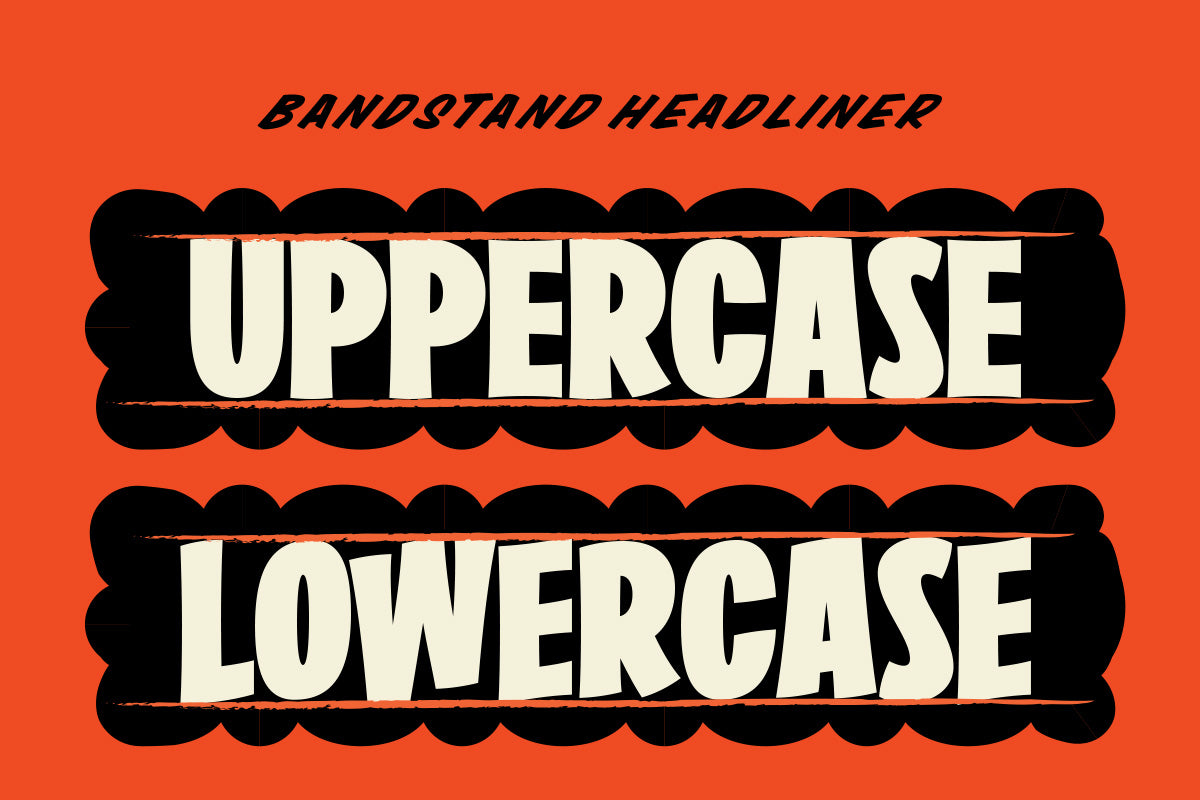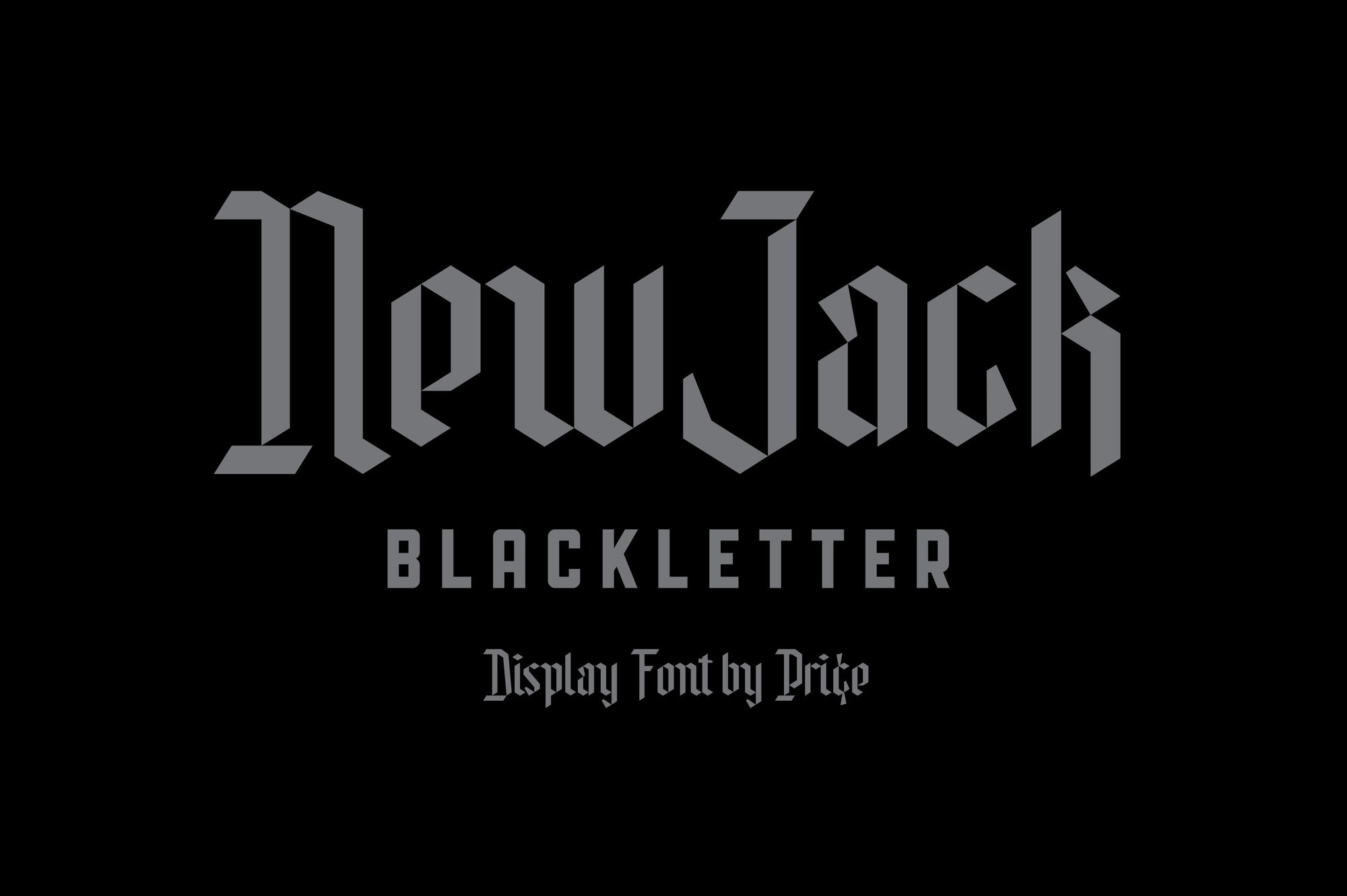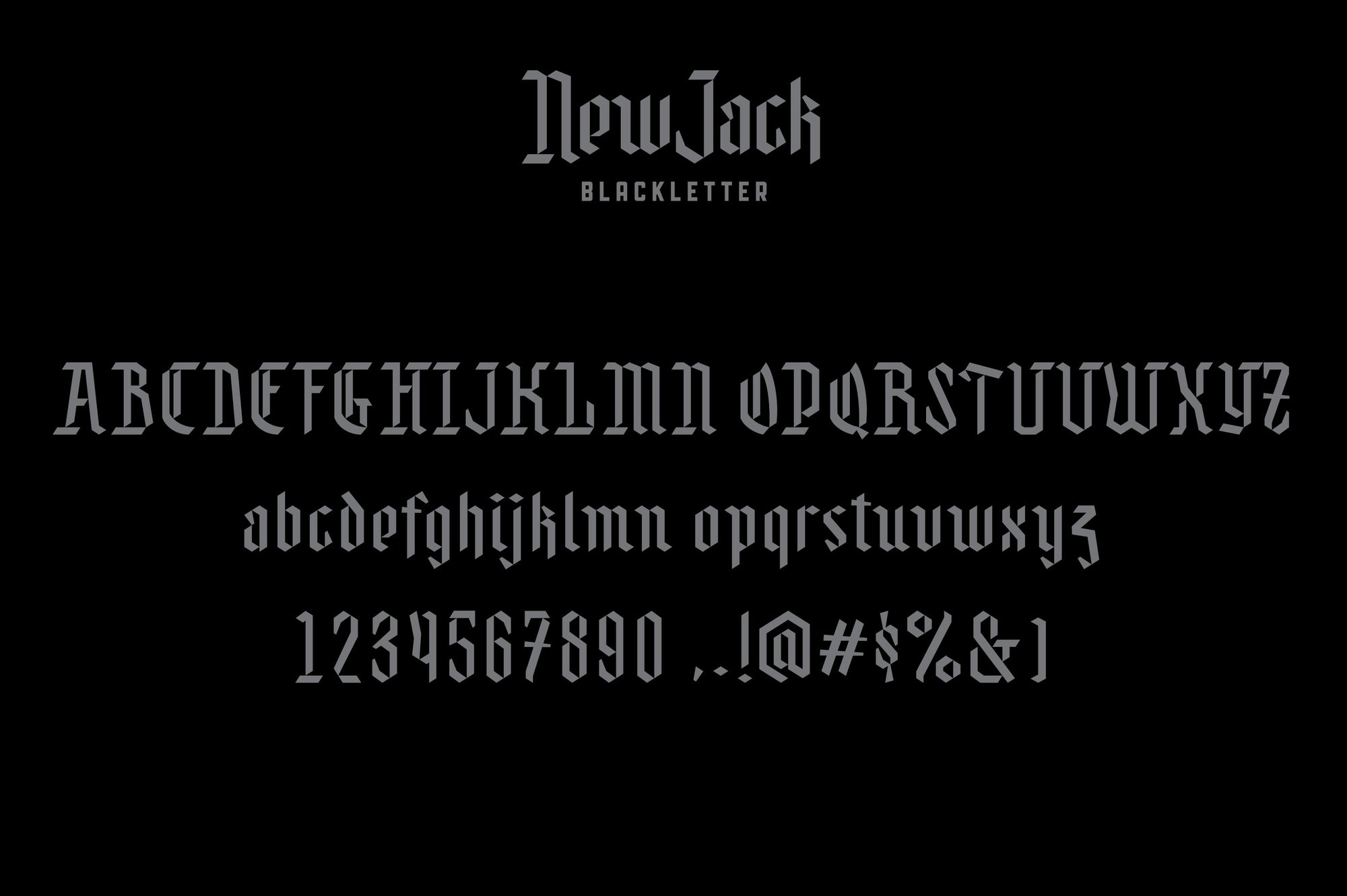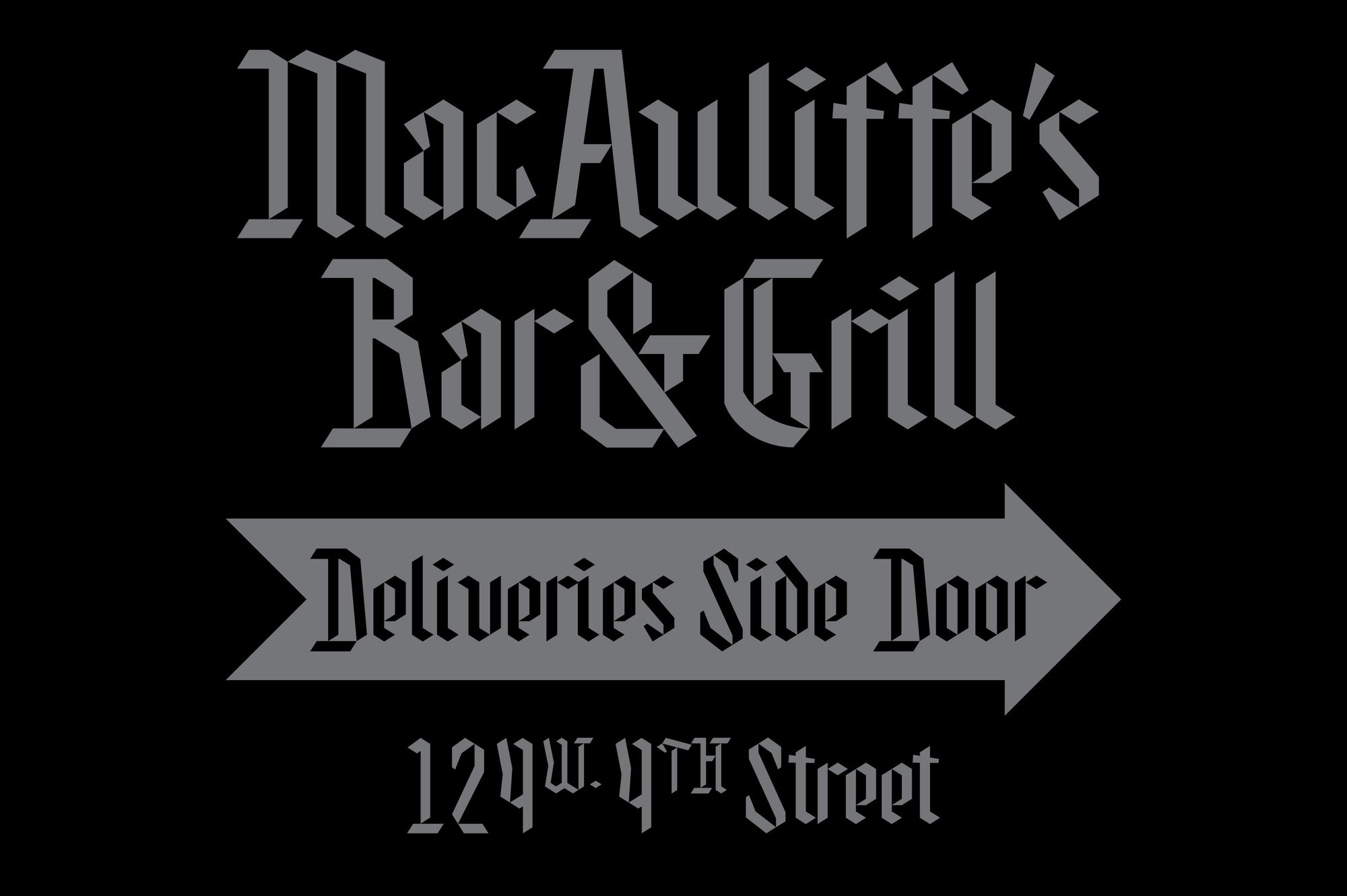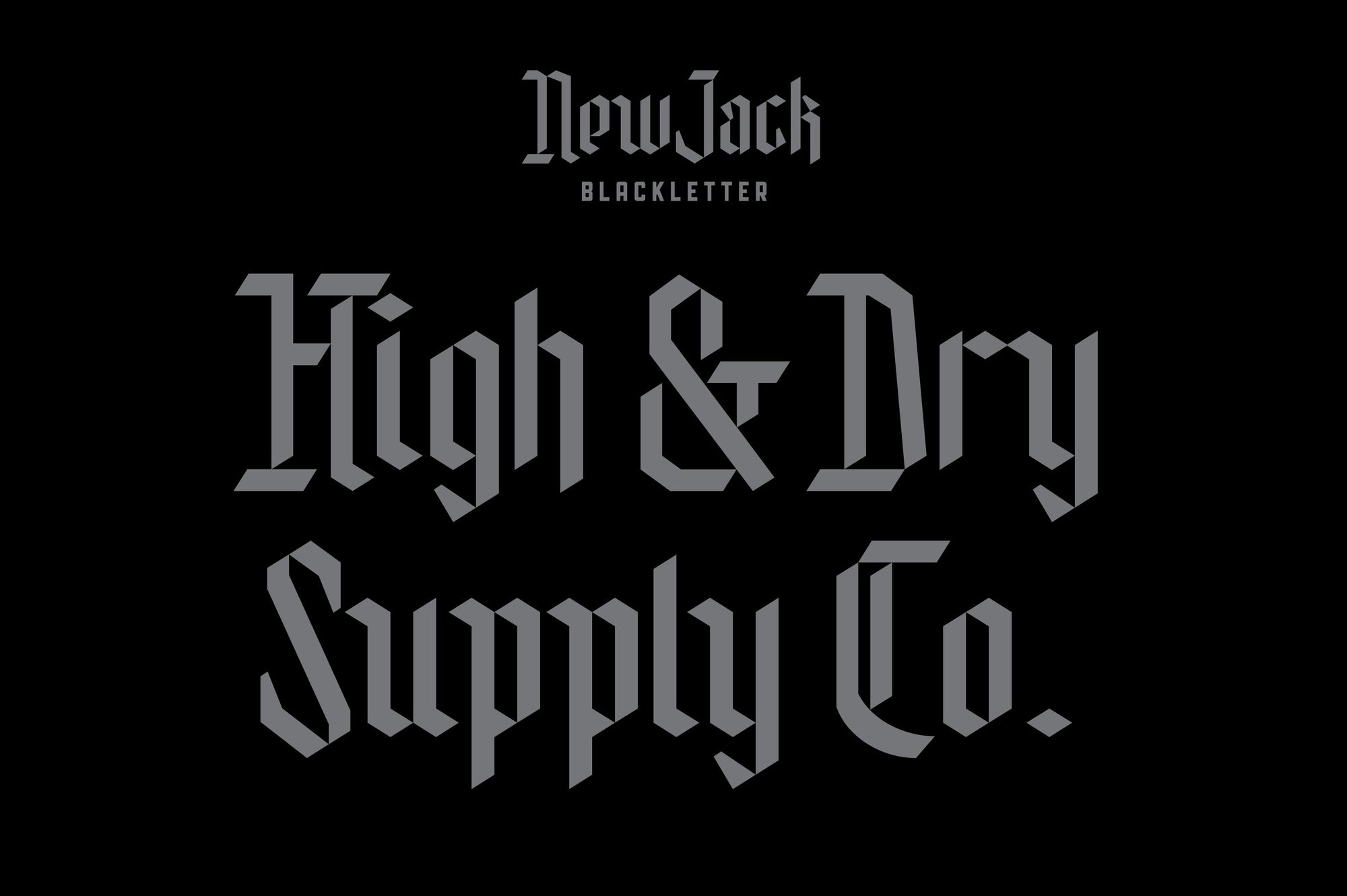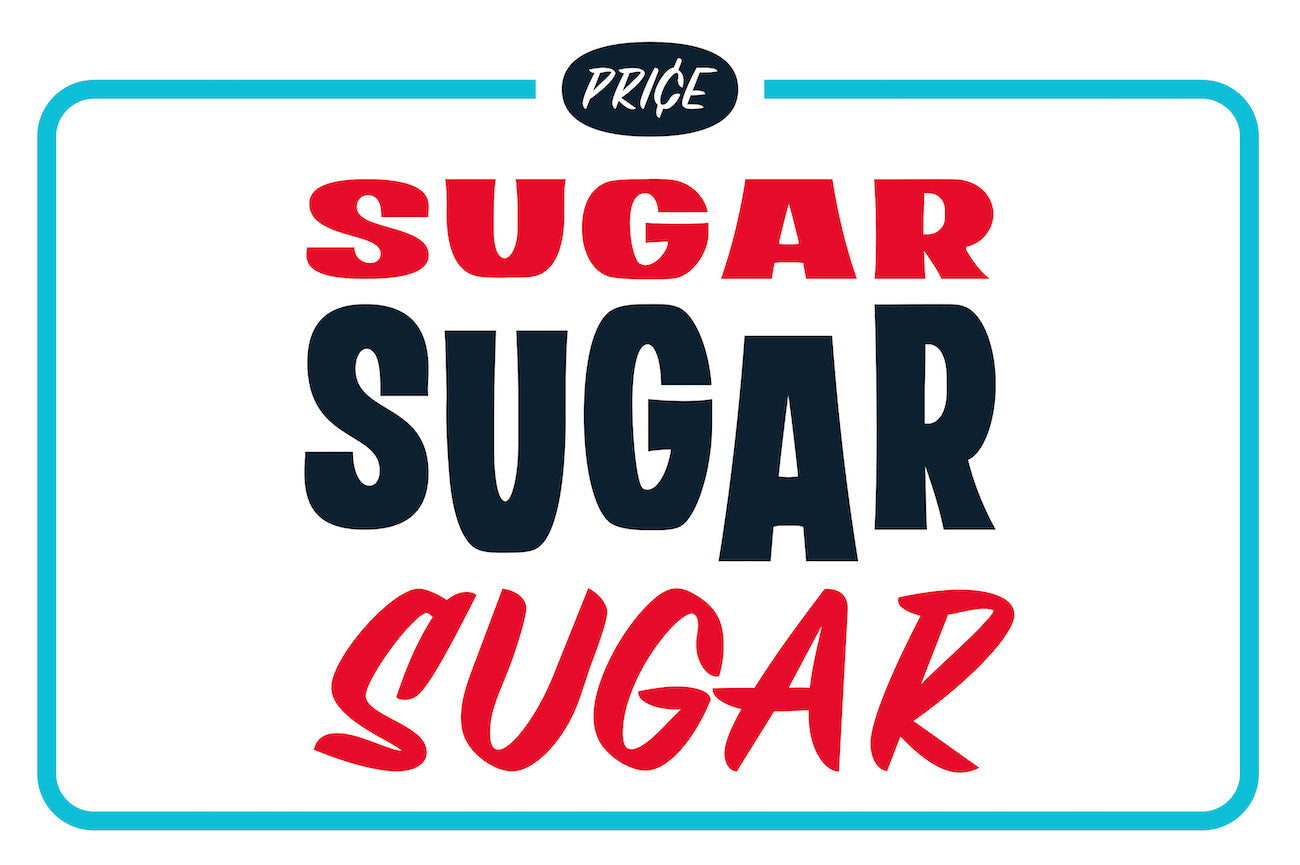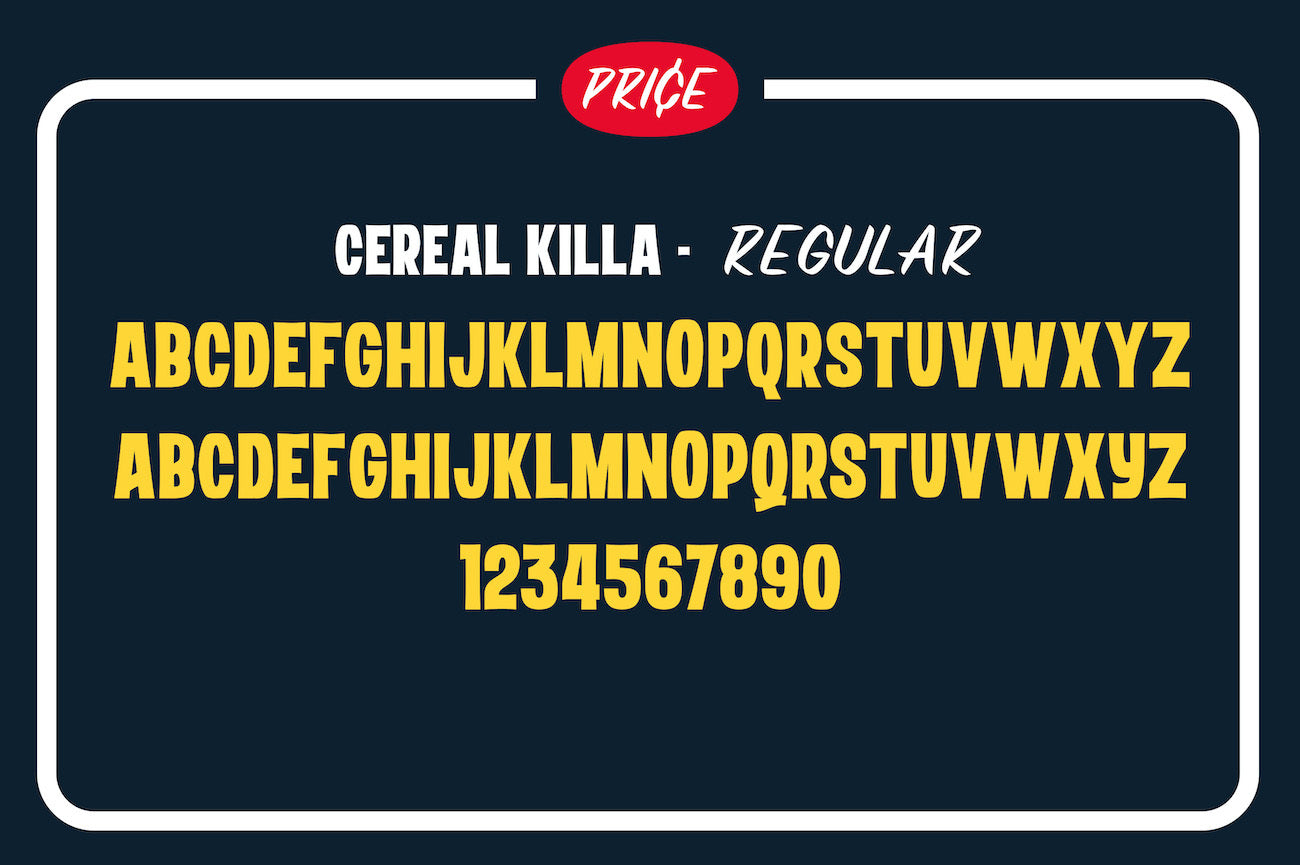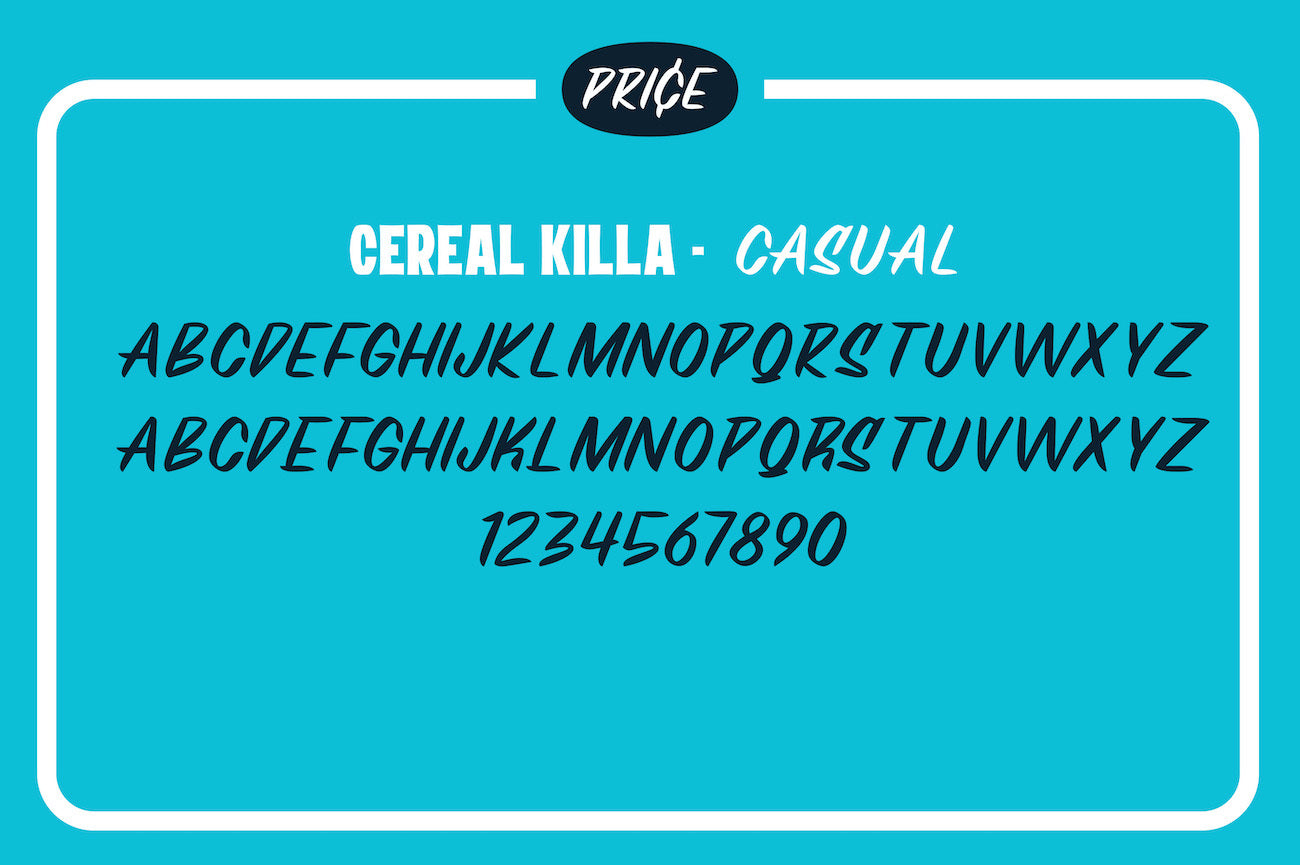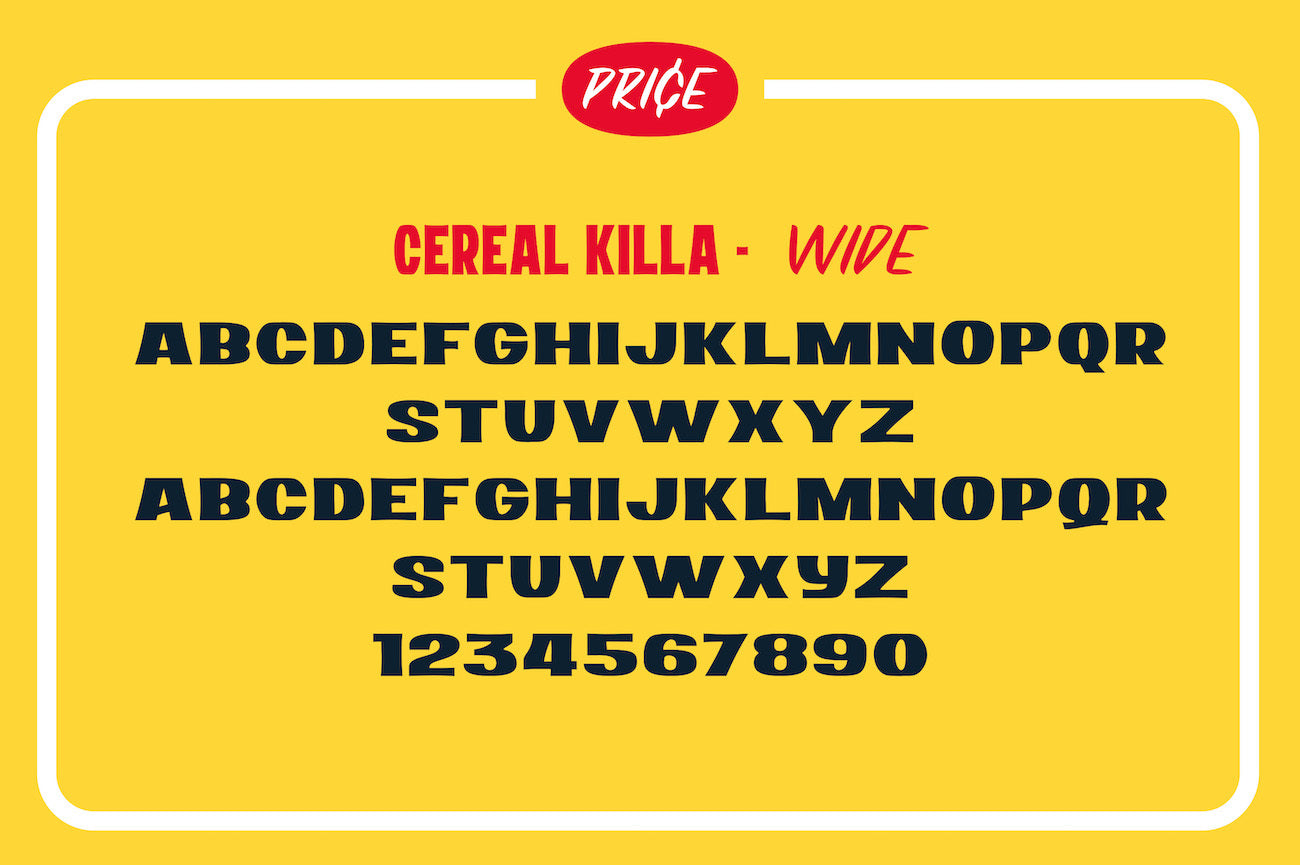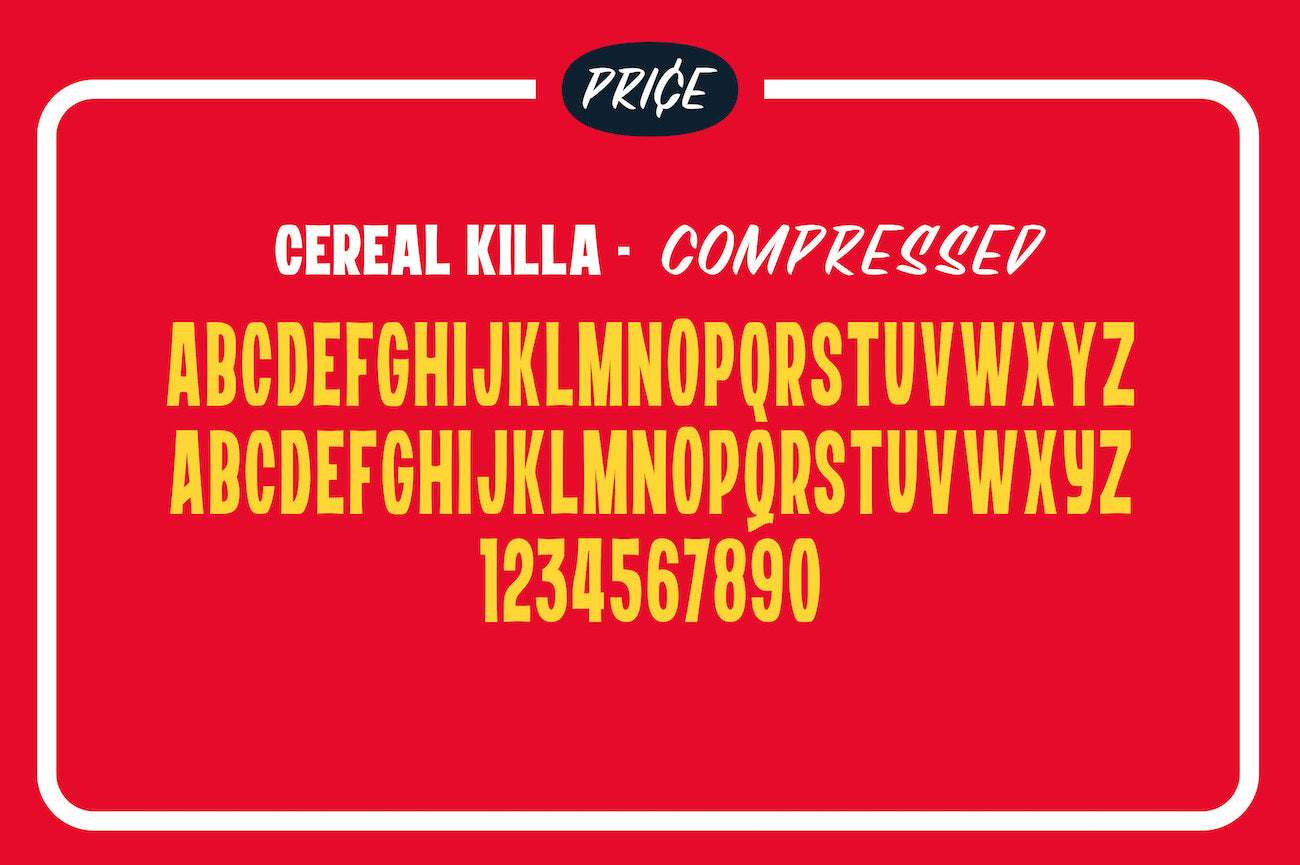
Price Deluxe Font Bundle
A diverse collection of mid-century inspired typefaces designed by lettering artist and illustrator, Travis Price.
Crumber
Crumber is an organic bubble font with the loose, rounded charm of underground comix lettering. You know, the kind you'd find scrawled across a dog-eared Zap Comix cover in 1968. Designed by Travis Price, it's got all the chewy, playful flavor of classic bubble gum with the craft of a lettering pro.
Brushwick
Brushwick is a super-condensed signpainter font with vintage grit and modern versatility. You know, the kind of letters you'd see striped down the side of a hot rod or across a corner hardware store window. Designed by Travis Price, every character looks like it was pulled straight off a sign painter's brush.
Sure Shot
Sure Shot is a bold, hand-painted brush script inspired by the sale signs and storefront lettering of the 1950s. With confident strokes, natural imperfections, and plenty of mid-century charm, it captures the energy of a sign painter working fast to turn heads. Includes Brush, Inline, and Inlay styles.
Gravedigger
A bold, uppercase blackletter built for clarity where most fall apart. Inspired by traditional gothic forms but stripped back for modern use, it delivers sharp, readable impact
Hotel Motel
Hotel Motel is a loose, hand-painted script that channels the charm of 1950s roadside signs. You know, the kind you’d spot flickering outside a desert dive at 3 a.m. Designed by Travis Price, it’s got all the swagger of vintage lettering with the polish of a seasoned illustrator’s touch.
BandStand
Bandstand is a bold, high-energy font family that channels the rebellious spirit of 1950s rock’n’roll posters while adding a clean, contemporary edge. Inspired by the era’s hand-drawn letterforms and punchy layouts, it captures the raw excitement of jukebox nights, leather jackets, and buzzing amplifiers.
Corner Store
A casual brush script that channels the spirit of those hand-painted sales signs you’d find at your local neighborhood corner store as a kid—that screamed of fresh produce, killer deals, and the local butcher's best cuts.
Corner Store includes uppercase letters, numbers, characters, and extra glyphs including stars, arrows and decorative marks.
Right Price
Right Price is a display font that's a nod to old concert posters and hand painted display cards– the perfect choice for adding some Ol Skool Flavour to your designs.
Right Price comes in three styles: Regular, Inline & Bold. The casual script is set to the lowercase characters in each style.
Just Right
Inspired by 1950’s advertising - Just Right Casual Script is the perfect choice if you’re looking to add some cool retro vibes to your work.
Dragster
Dragster is a collection of 8 display typefaces inspired by vintage racing fonts used for race logos, car numbers, racing numbers, helmets, and signage.
Perfect for typesetting your race plate, helmet, doors, bonnet….or pimping your mum's car! Includes stencil and italic variations for a total of 17 fonts.
Cereal Killa
Cereal Killa is a display font family inspired by old cereal box packaging that's sure to give your designs an extra crunch!
Whether you're looking for a playful, kitschy, or quirky typeface, each of the 4 fonts has got you covered.
New Jack
New Jack Blackletter is a contemporary Blackletter Display font that's perfect for logos, branding, and apparel.
Unlike traditional Blackletter fonts that can be difficult to read certain letterforms, New Jack has been created to be easily legible.
Hard Grind
Inspired by industrial machinery badges, nameplates, and manufacturer maker's marks, Hard Grind embodies the essence of factories, steelworks, and gritty urban landscapes. It draws upon the raw energy and materials that fuelled the Industrial Revolution, translating them into a powerful and versatile typeface set.
Price Gothic
A cross between athletic block and military industrial, Price Gothic was created as a utility font for logo, branding and apparel design. With over 60+ alternate glyphs, it’s easy to change its aesthetic for any application.
Big Gig
Big Gig is a rough woodcut style font perfect for gig posters to help get the word out there.
“The reason for creating Big Gig is I wanted a rougher, looser font for gig poster work that could be easily stretched and manipulated to fit a space in a composition but also have synergy with my illustration.” – Travis Price